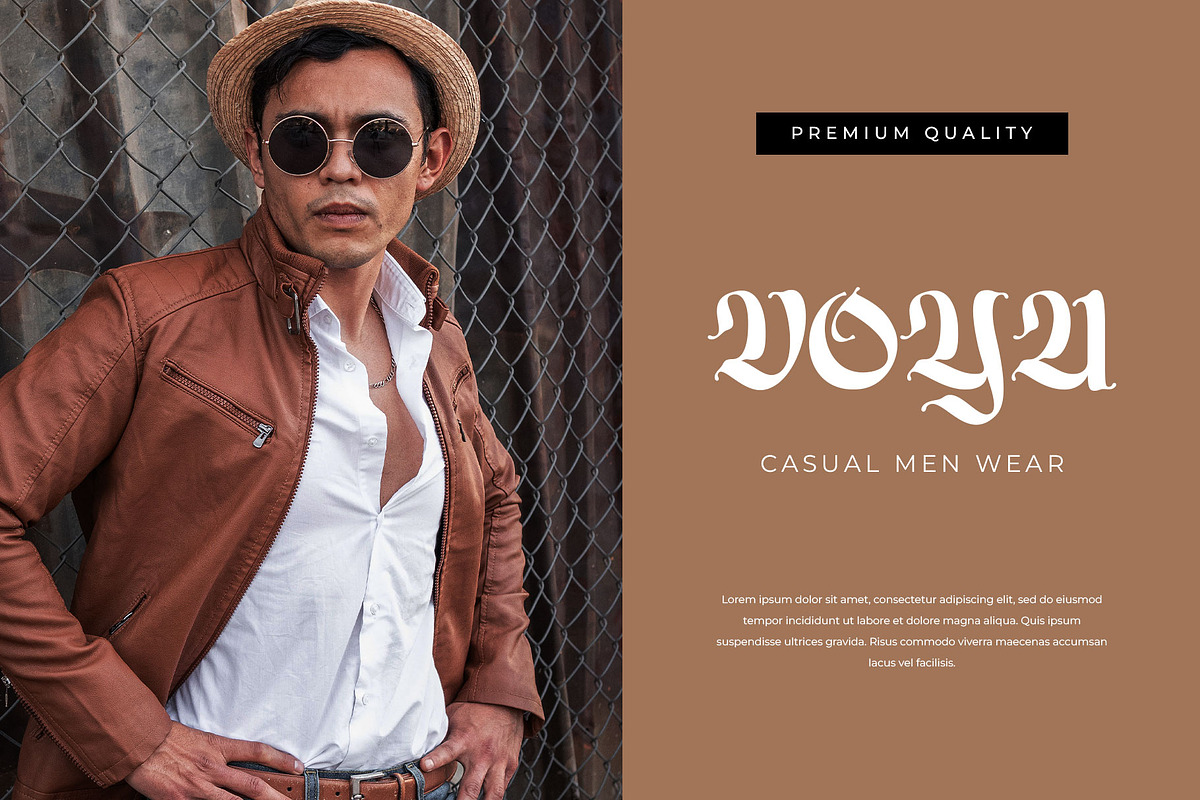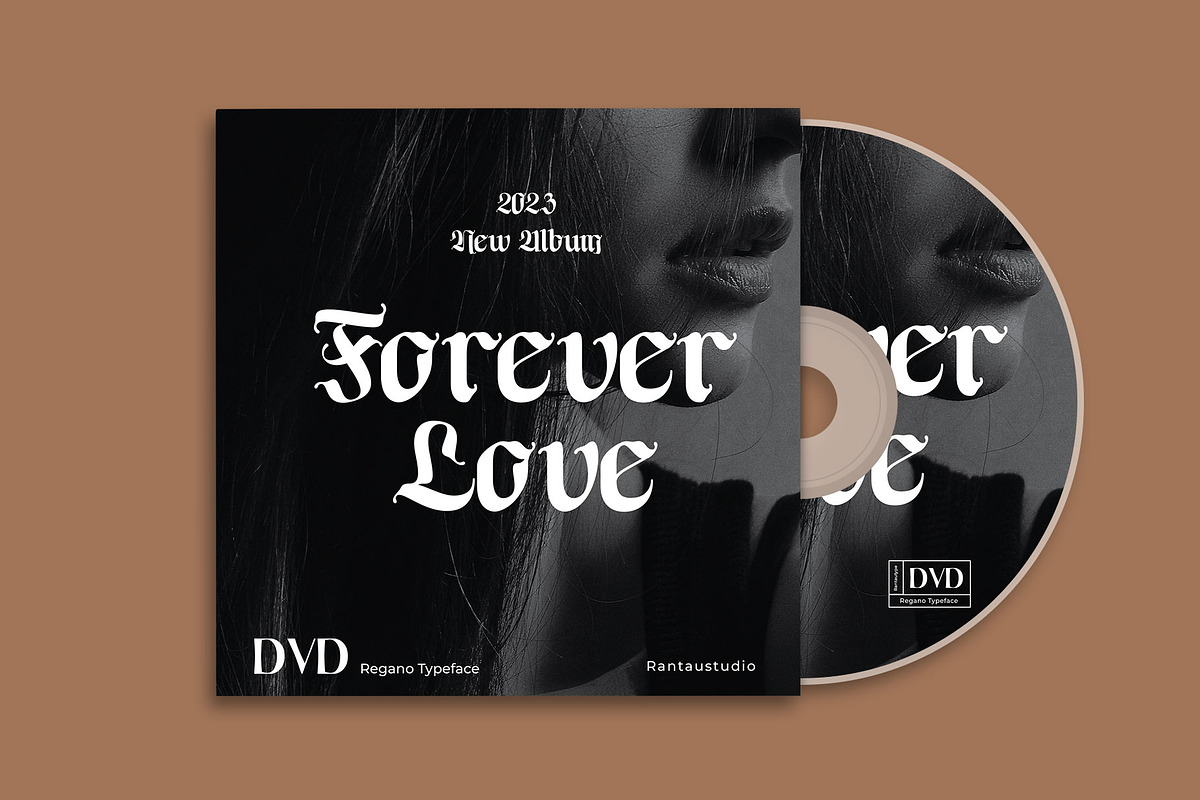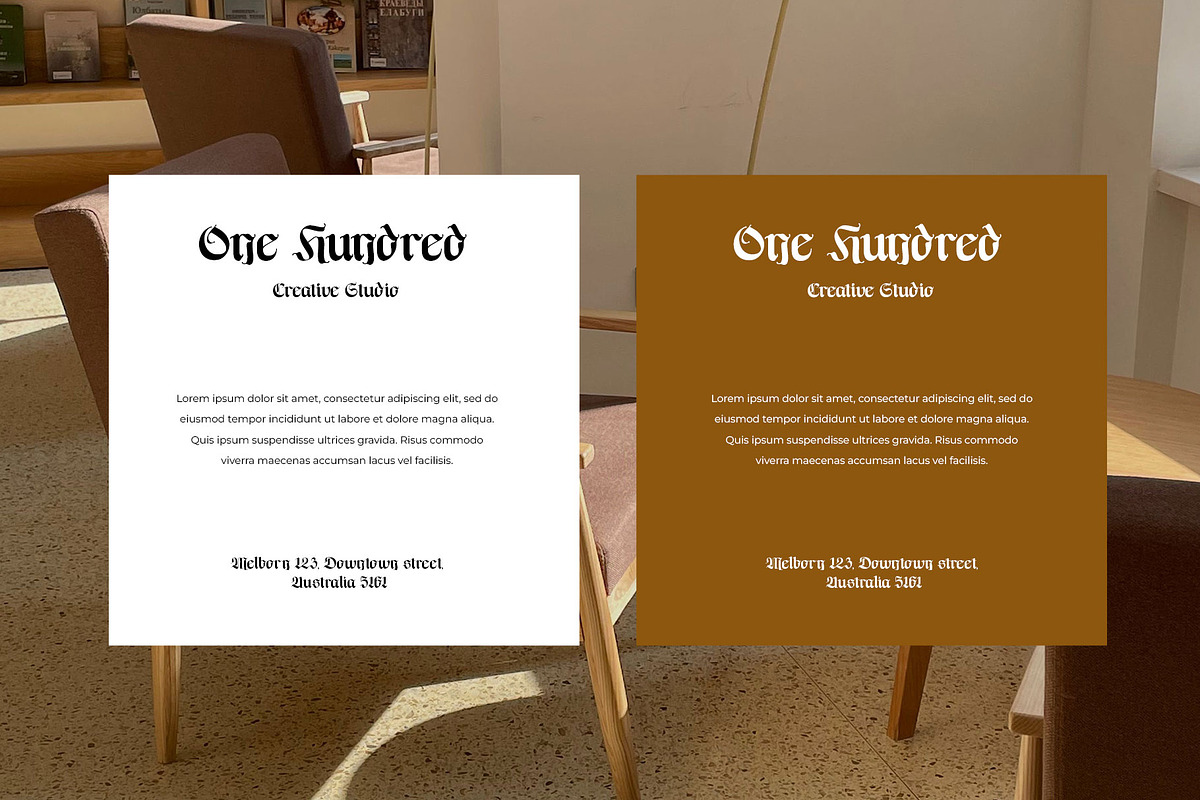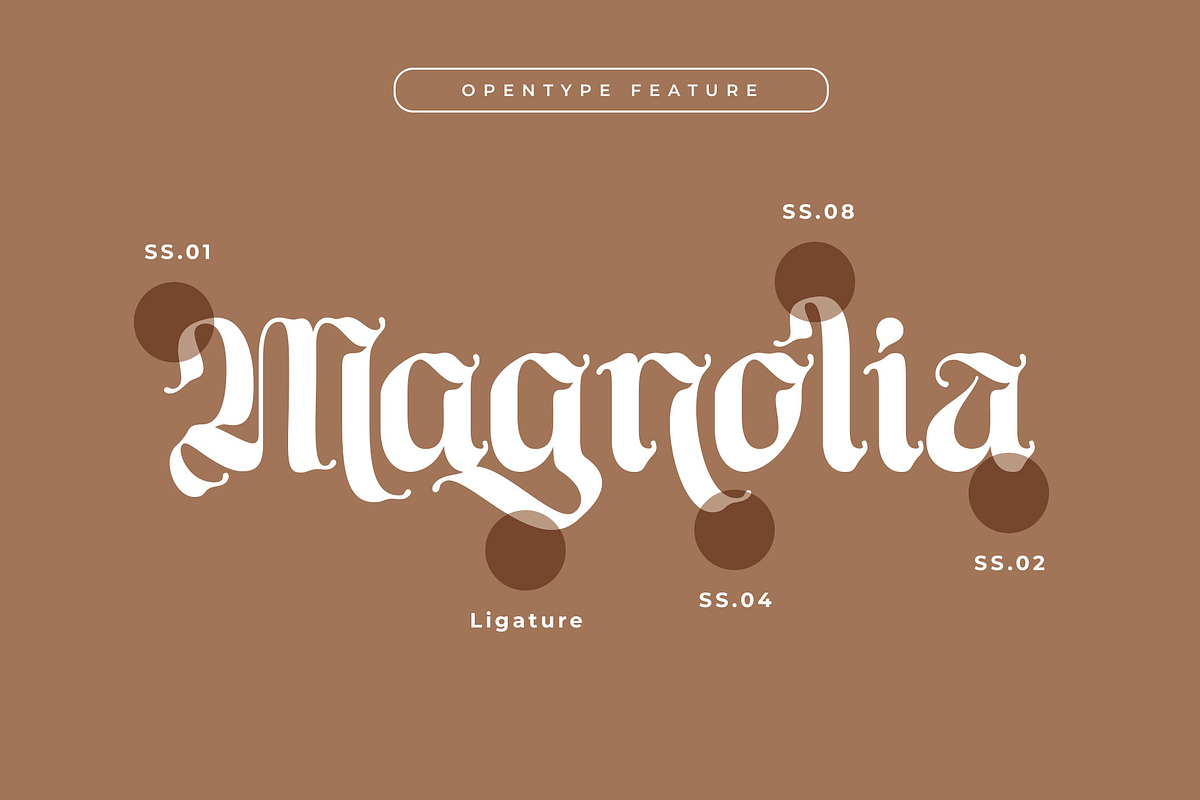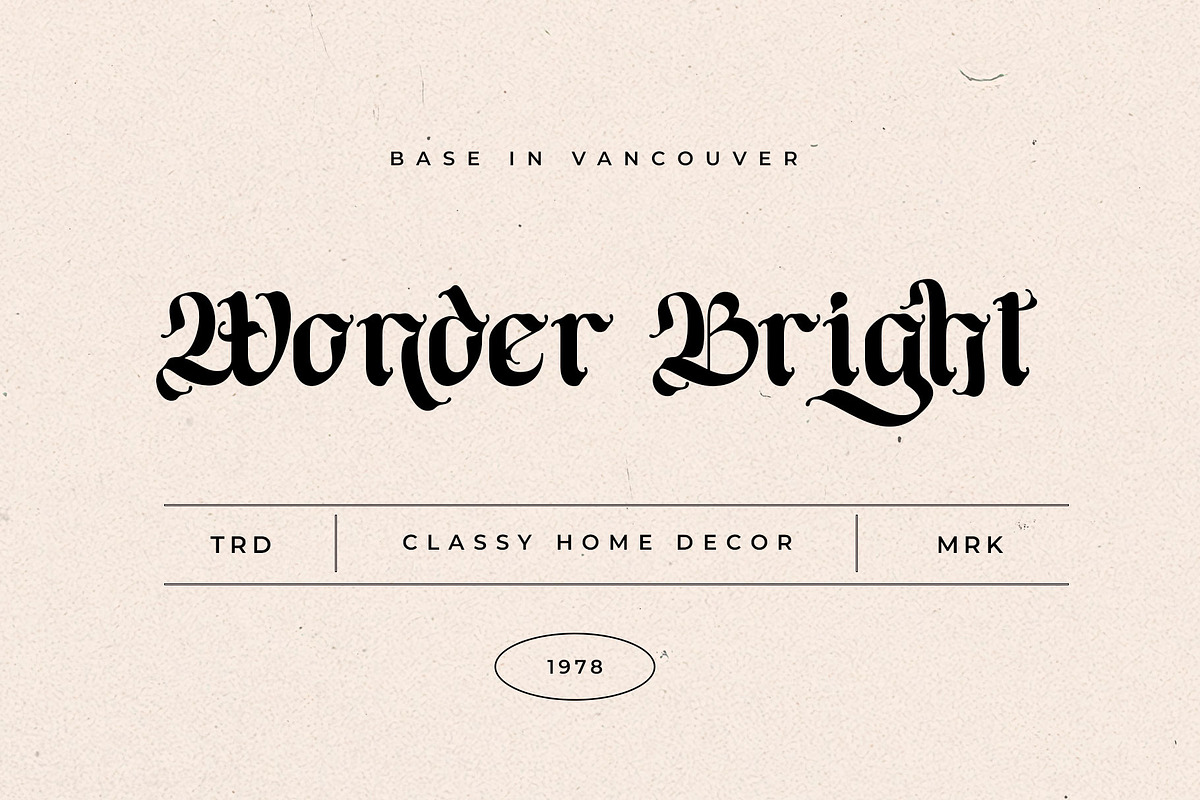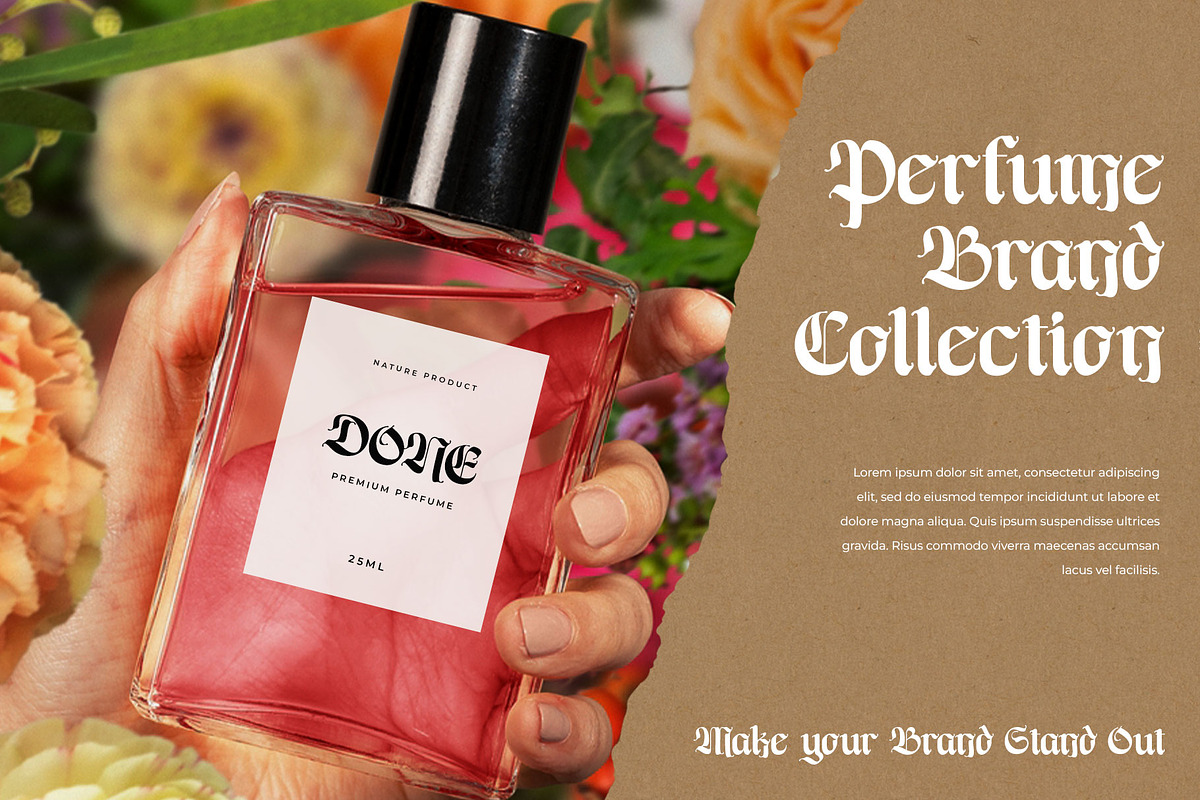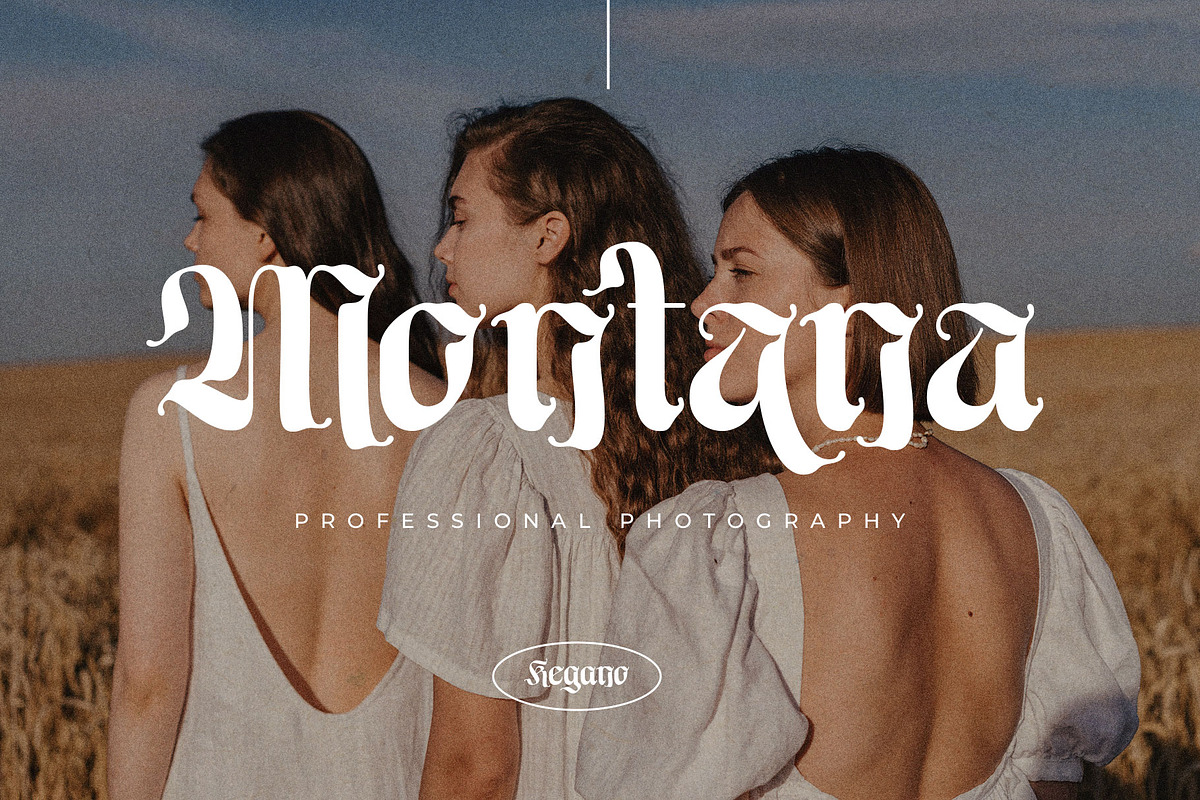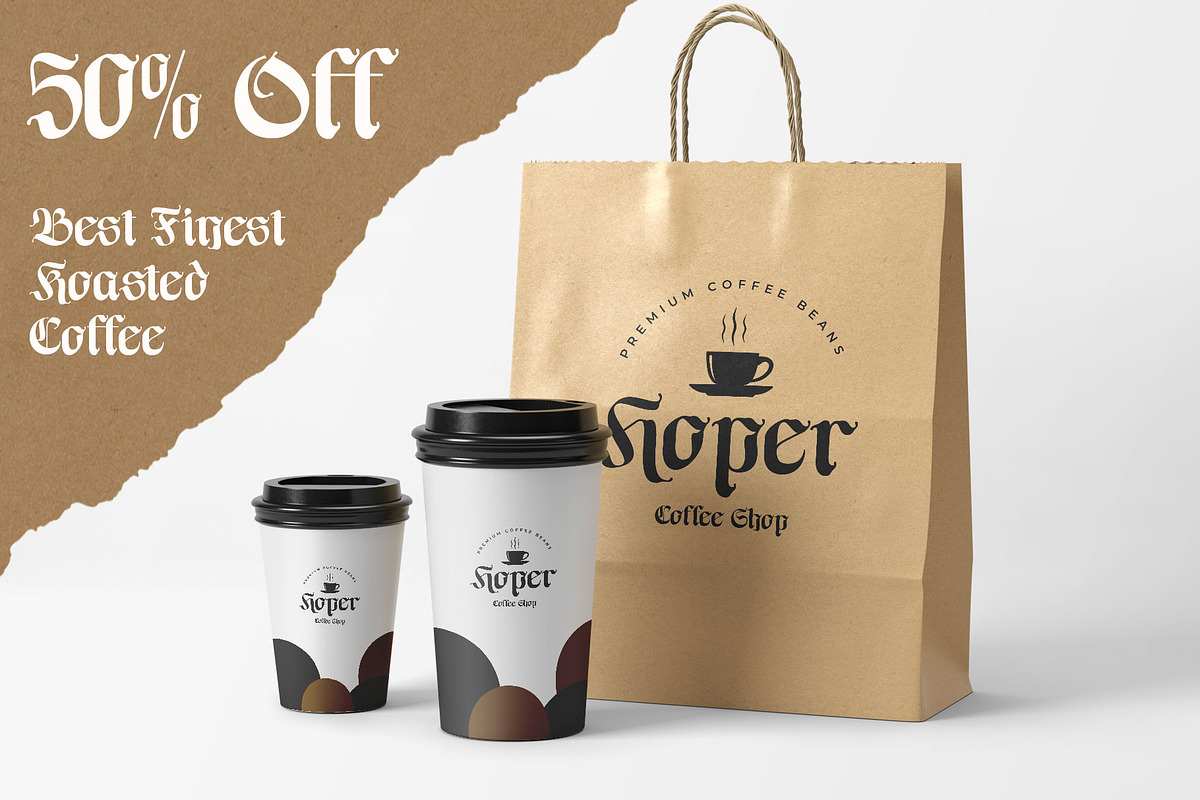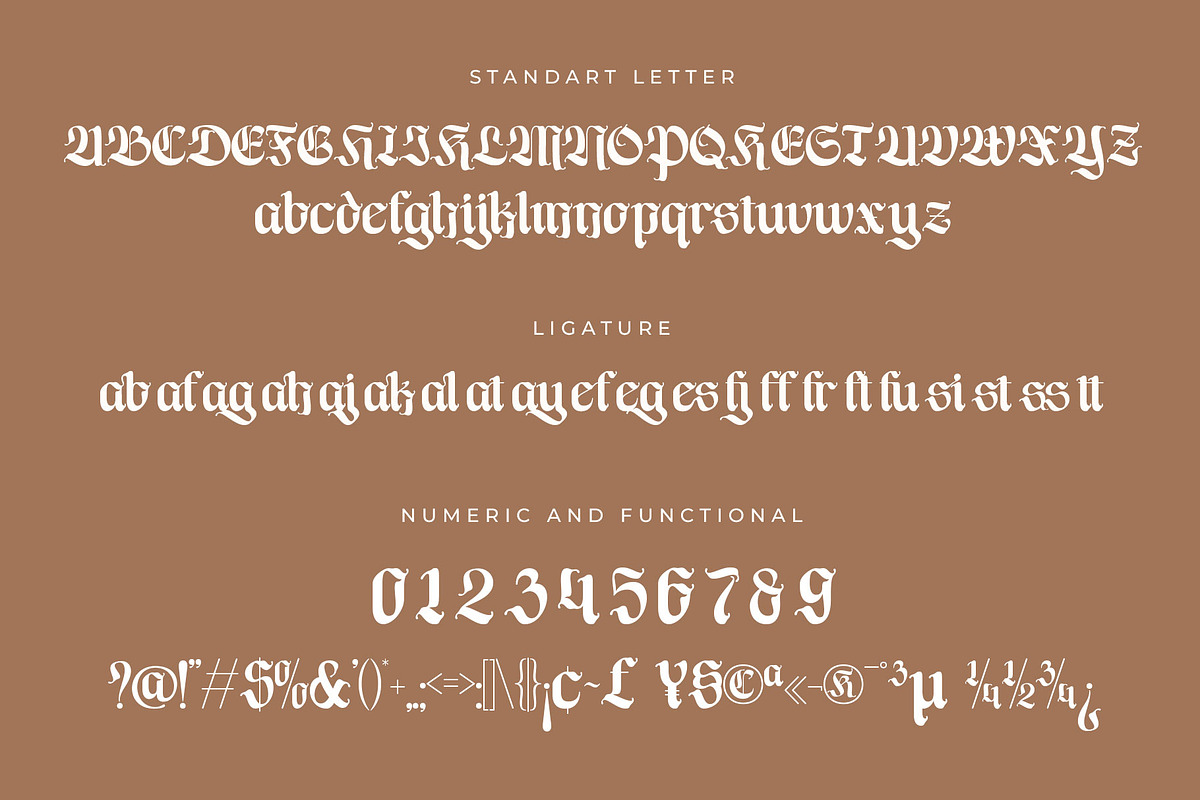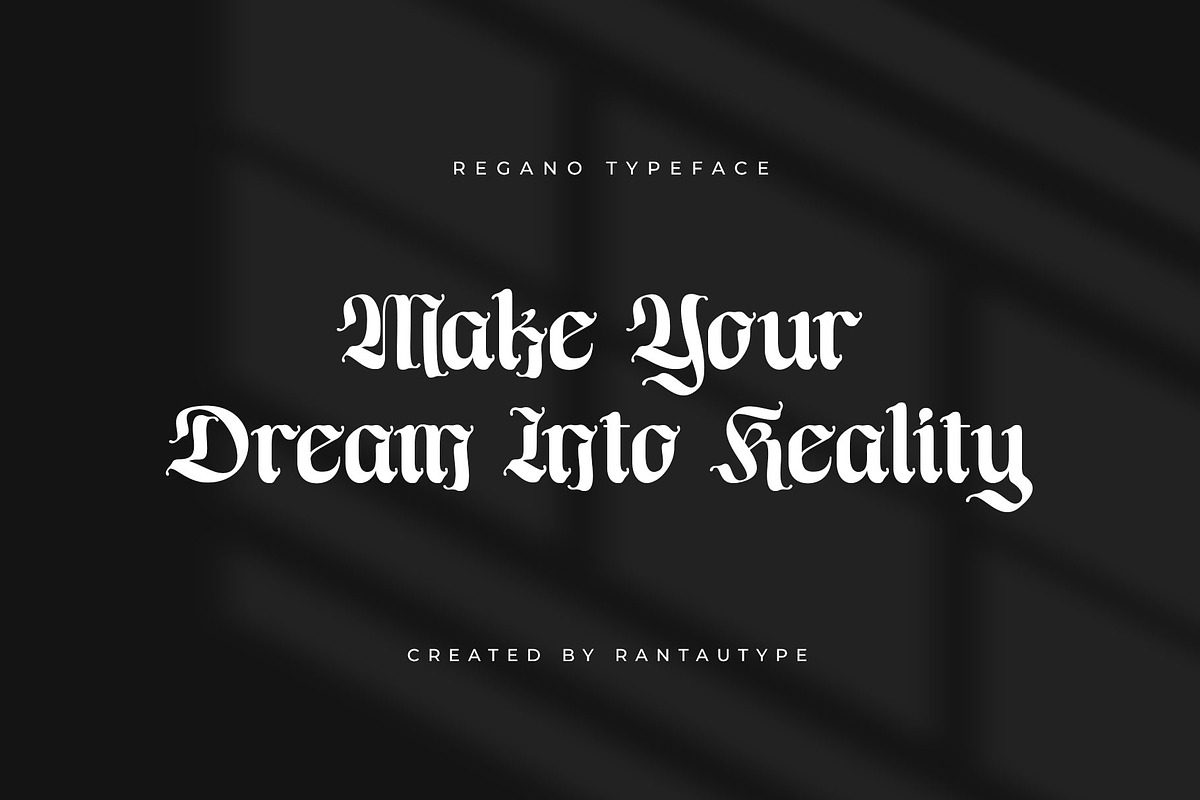
Regano Classic BlackLetter Font
Regano is classic blackletter font with delicate curves and refined details create a sense of sophistication and elegancy. Regano brings a touch of charm and sophistication to branding, editorial designs, and more. We keep this font look strong, classic, groovy, and Elegant. Regano typeface offers extensive multilingual support and includes PUA unicode for easy access to special characters.
Regano is a beautiful choice for any creative endeavor, great choice for watermark on photography, branding, logo design, quotes, album cover, magazine and many other design project. Regano here to make your work to high level!!!
- Standar character A-Z and a-z
- Ligature and alternate
- Multilinggual support
- Opentype Feature